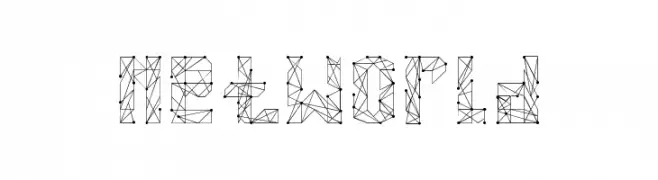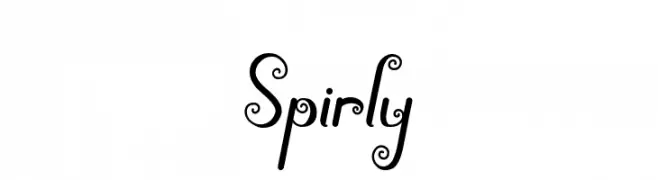
A geometric, polygonal font with a modern, tech-inspired aesthetic.
A playful and whimsical font with dynamic, irregular letterforms.
A whimsical, decorative font with playful curls and swirls.
A playful, hand-drawn font with elongated, flowing letterforms.
A bold, playful script font with flowing, cursive letterforms.
A playful, star-studded font with a whimsical, hand-drawn style.
A playful, star-adorned font with bold, rounded characters.
A playful, bold font with irregular, dynamic strokes.
A pixelated, retro-style font with a digital, grid-like appearance.
An elegant script font with flowing, interconnected letters and decorative flourishes.